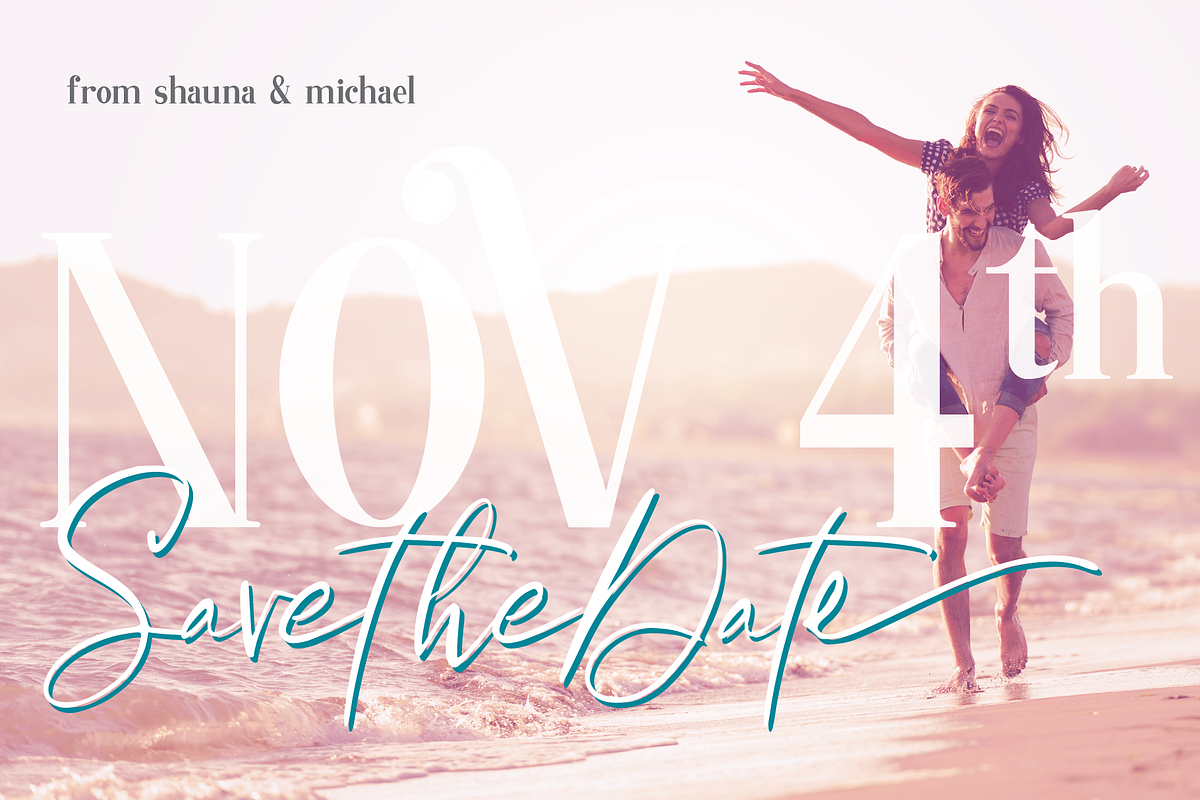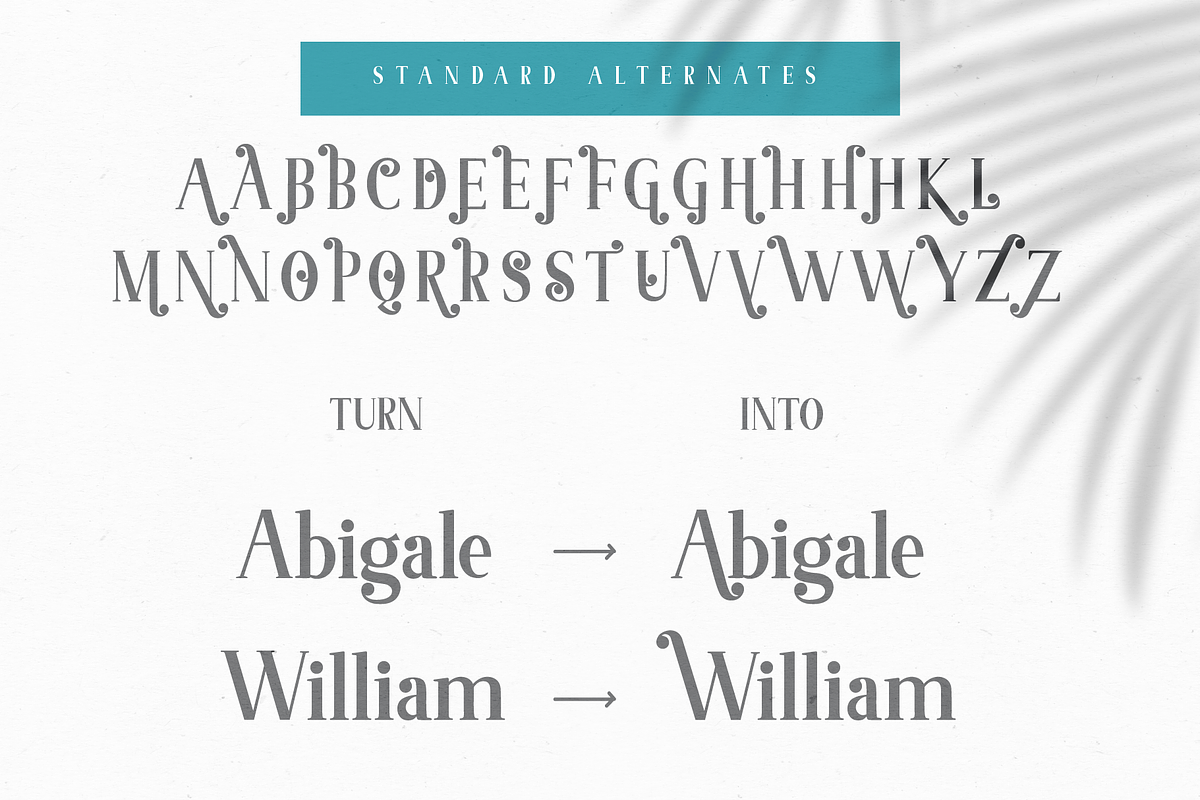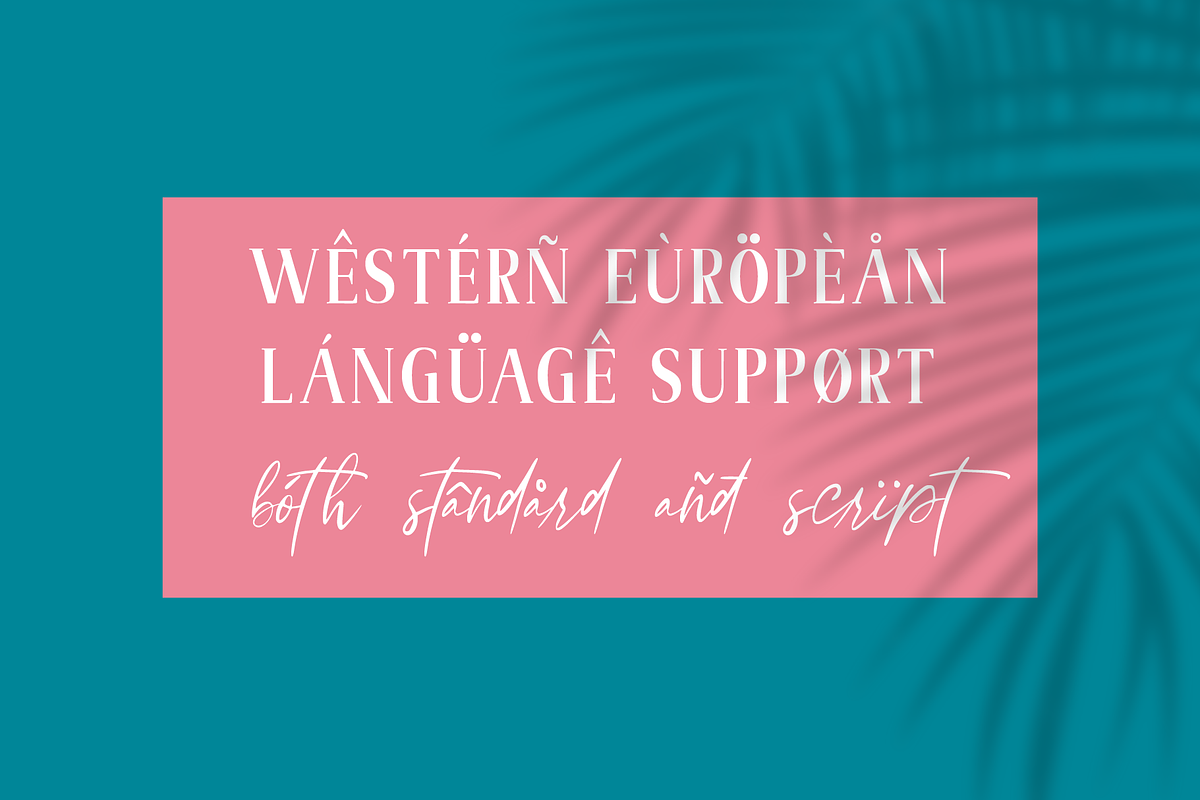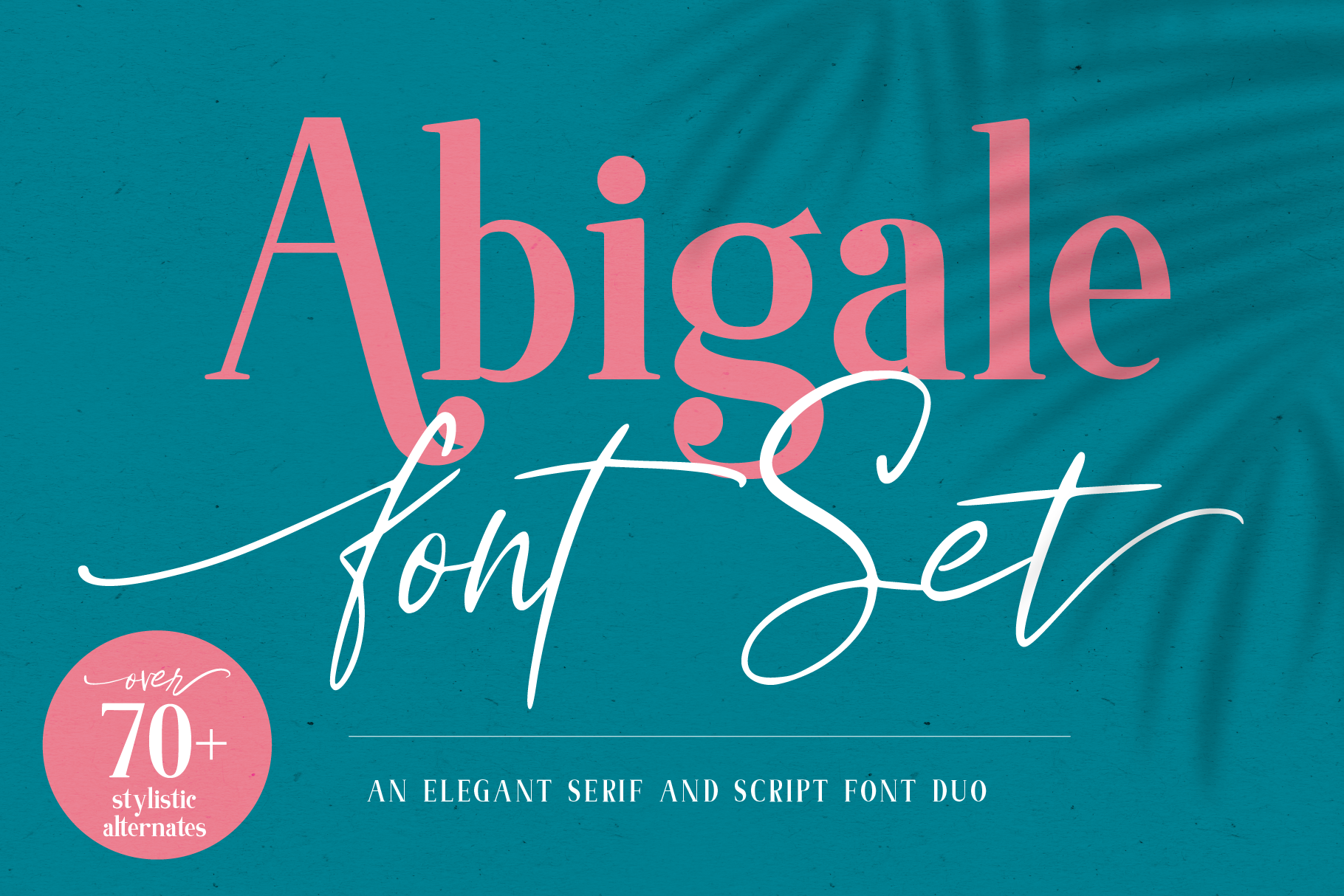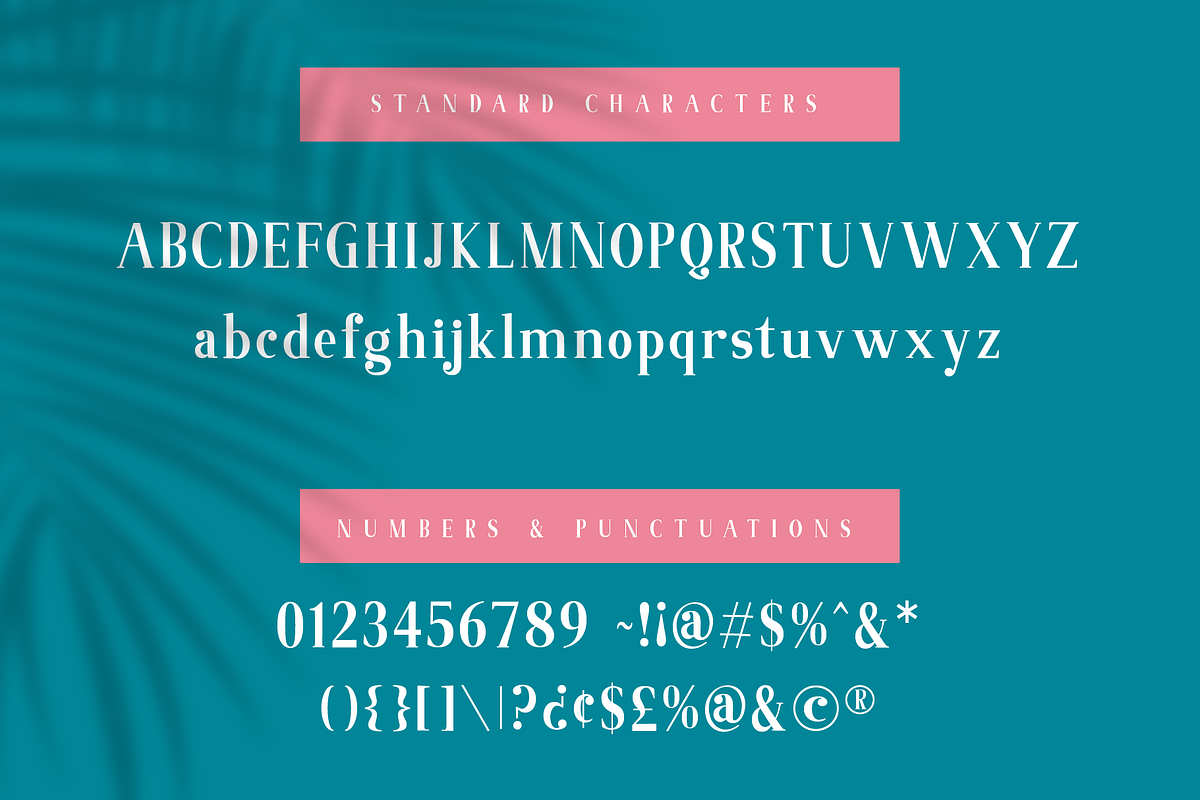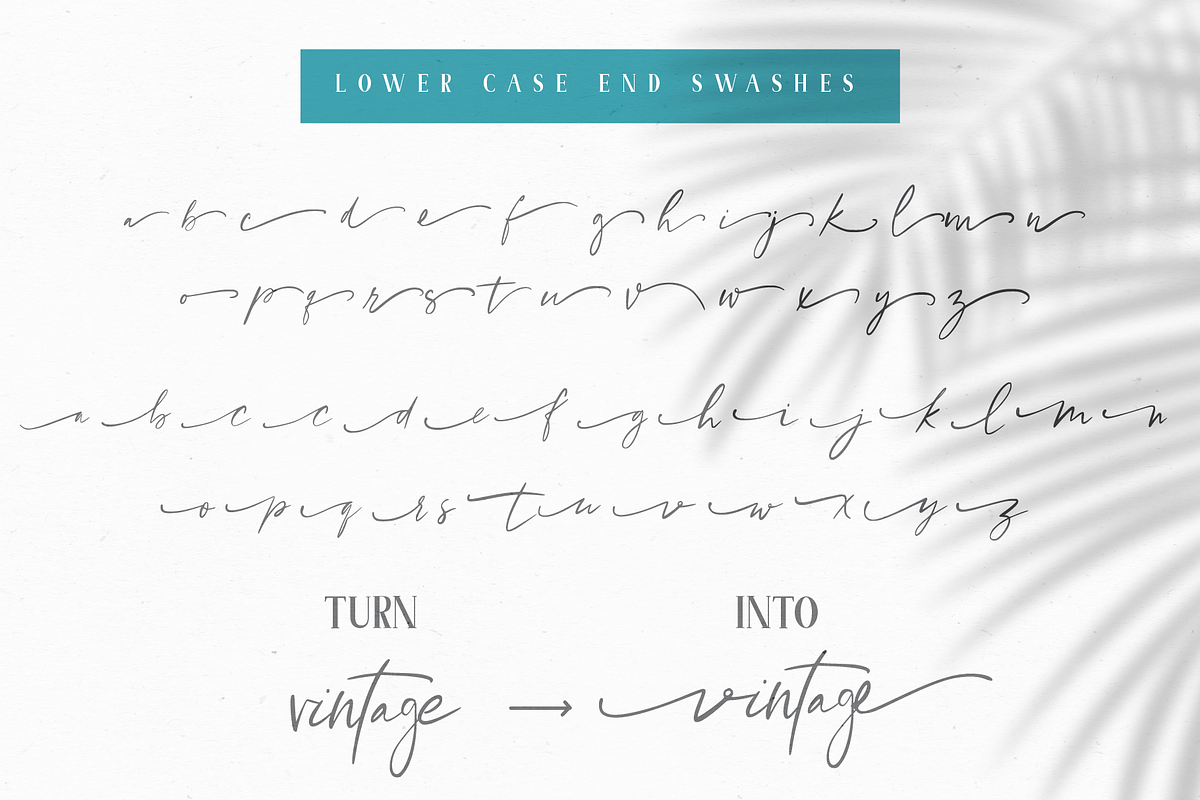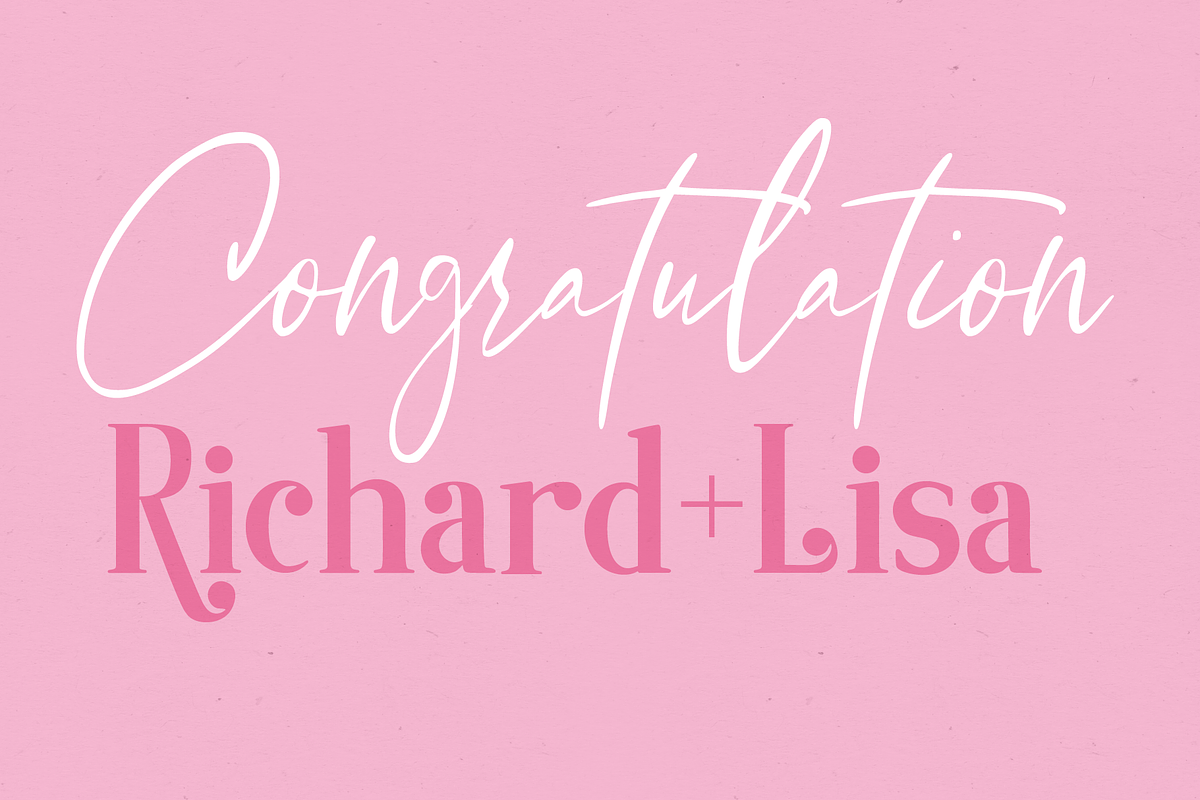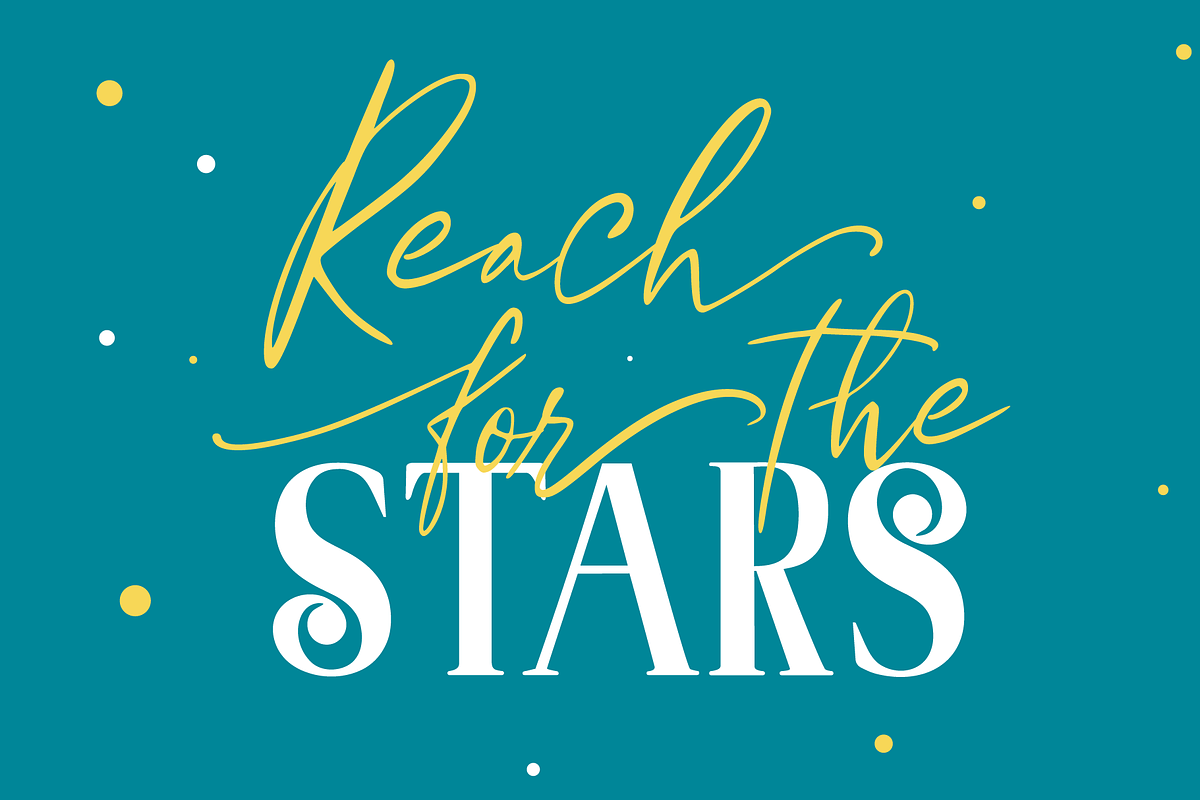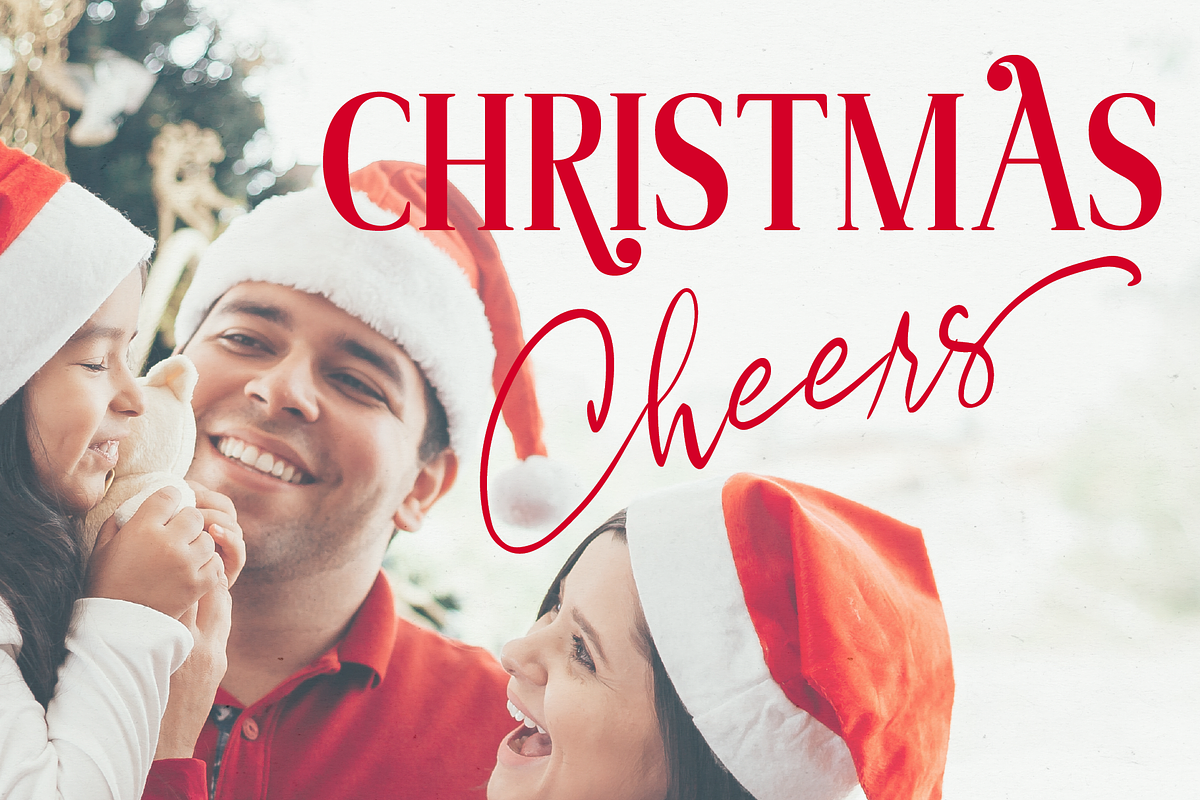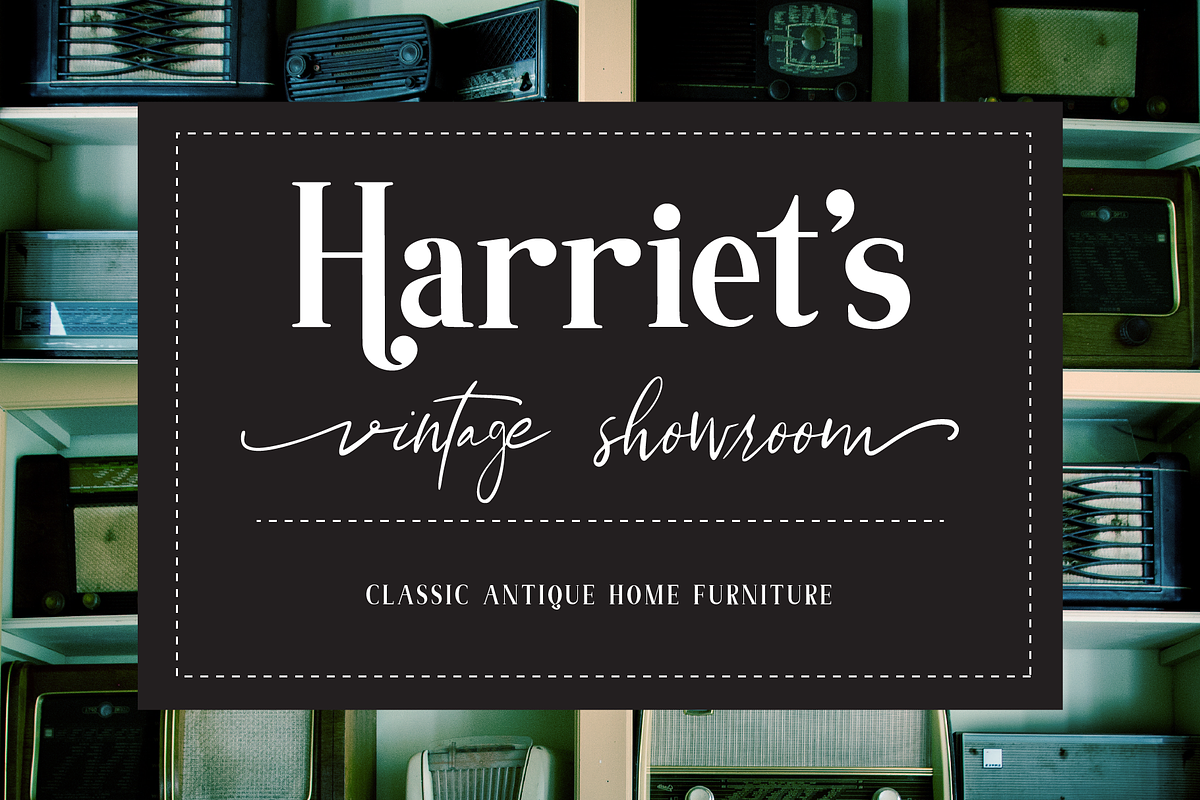
Abigale Font Duo Set
Introducing, Abigale Font Duo Set. I wanted to create a font set that's classic yet modern. Something versatile that can be used for any Holidays, Christmas, Halloween, Easter to any special occasions, wedding, birthday, graduations, etc. This PUA font is perfect for professional designers, social media, or crafters.